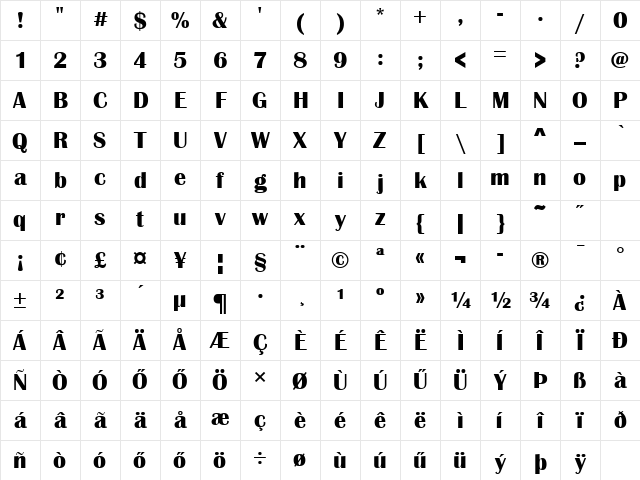
H_Britannic Bold Free Font
H_Britannic Bold
Design Context for H_Britannic
H_Britannic is a composed and adaptable typeface that performs quietly and consistently across a wide range of design contexts. Its bold stroke weight gives it real presence on the page.